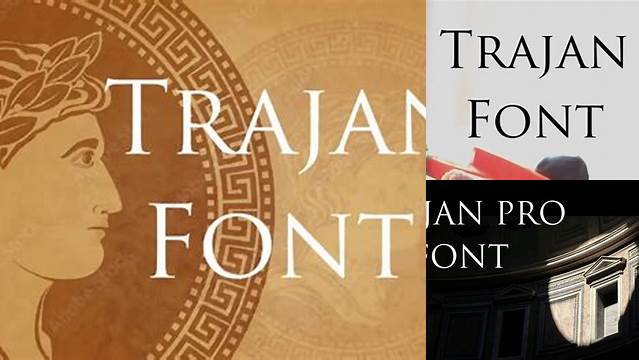
Hey guys! Are you on the hunt for the Trajan font free download? You've landed in the right spot! This guide will walk you through everything you need to know about this iconic typeface, where to find it, how to use it, and even some alternatives if you're on a budget or looking for something a little different. Let's dive in!
What is Trajan Font?
Before we jump into the Trajan font free download hunt, let's understand what makes this font so special. Trajan is a serif typeface designed by Carol Twombly in 1989 for Adobe. It's inspired by the inscriptions at the base of Trajan's Column in Rome, hence the name. Its elegant, classical appearance makes it a favorite for designs that need to convey sophistication, history, and authority.
Key Characteristics of Trajan:
- Serif typeface
- Based on Roman square capitals
- Elegant and classical
- All-caps design (originally)
- Often used for titles, logos, and formal documents
Why is Trajan Font So Popular?
So, why is everyone searching for a Trajan font free download? Well, its popularity stems from its timeless appeal and versatility. It's often used in:
- Movie posters (think historical dramas or epics)
- Book covers (especially for non-fiction and historical fiction)
- Logos for high-end brands
- Wedding invitations and formal announcements
- Museum exhibits and signage
The font exudes a sense of grandeur and importance, making it a go-to choice when you need to make a statement. It's the kind of font that commands attention and adds a touch of class to any project. The impact of a well-placed Trajan font is undeniable.
Free Alternatives to Trajan Font
Alright, let's get to the good stuff: the Trajan font free download alternatives. These fonts capture the essence of Trajan without costing you a dime (for personal use, at least – always check the license!).
1. Forum Font
Forum is a fantastic alternative that closely resembles Trajan. It's an all-caps font with a similar classical feel. You can find Forum available for free download on several reputable font websites. It's perfect for headlines and short text passages where you want that Roman inscription vibe.
2. Cinzel Font
Cinzel is another excellent option. While it has its own unique character, it shares the same inspiration from Roman letterforms. It's a bit more modern than Trajan but still retains that elegant and authoritative look. Cinzel is available on Google Fonts, making it super accessible and free to use in your projects.
3. IM Fell DW Pica
This font is part of the larger IM Fell family and offers a classical serif style that echoes the historical roots of Trajan. While it's not a direct copy, its refined letterforms and historical context make it a worthy free alternative, especially for projects needing a touch of old-world charm.
4. Poly Font
Poly is a versatile serif font that offers a more contemporary take on classical Roman letterforms. It’s a solid free option for body text and headlines, providing a clean and readable alternative to Trajan, especially in digital environments.
5. Crimson Text
Crimson Text is designed for body text but can work well for shorter headlines that need a touch of elegance. This free font is highly readable and provides a softer, more modern alternative to the stark formality of Trajan. It’s excellent for projects where readability is key.
6. Playfair Display
Playfair Display is a transitional serif typeface with high contrast and delicate serifs. While more decorative than Trajan, it still offers an air of sophistication and can be used free for headlines and display purposes to emulate a similar sense of elegance.
7. Lora
Lora is a well-balanced serif font that’s both modern and rooted in calligraphy. Its readability and gentle curves make it a great free alternative for projects needing a more approachable but still elegant feel. It works especially well in body text and shorter display titles.
For advanced users, consider these tips when working with Trajan:
- Custom Kerning: Fine-tune the kerning to achieve optimal spacing between letters.
- Creative Compositing: Experiment with different ways to combine Trajan with other design elements.
- Contextual Application: Use Trajan strategically in specific contexts to maximize its impact.